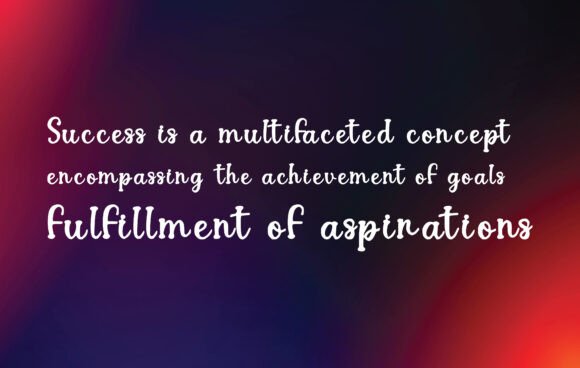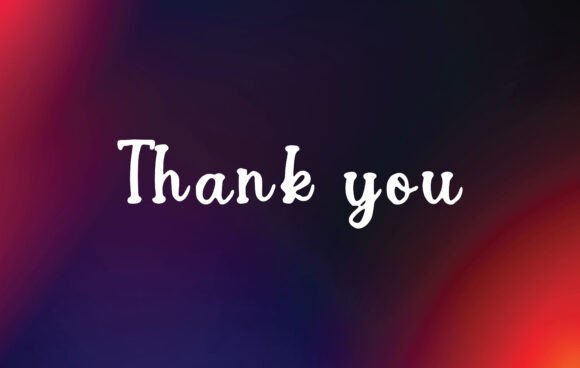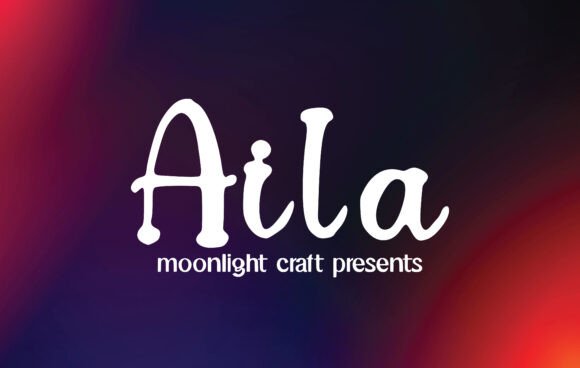
Aila Font: Elevate Your Creative Projects with this Lovely Handwritten Font
Are you a designer, crafty enthusiast, or a creative entrepreneur looking for a font that can take your projects to the next level? Look no further than Aila Font, a beautiful handwritten font that is sure to capture your audience’s attention. In this article, we’ll dive into the features and benefits of Aila Font, and explore how it can be used to create stunning visual content.
What is Aila Font?
Aila Font is a lovely and beautiful handwritten font that has been designed to help creatives bring their ideas to life. With its elegant and flowing script, Aila Font is perfect for a wide range of projects, from logos and branding to quotes and social media graphics. This font is carefully crafted to provide a unique and personalized touch to your designs, setting them apart from the rest.
Key Features of Aila Font
• Handwritten script: Aila Font features a beautiful handwritten script that adds a personal touch to your designs.
• Elegant and flowing: The font’s elegant and flowing design makes it perfect for creating sophisticated and eye-catching visual content.
• High versatility: Aila Font can be used for a wide range of projects, from logos and branding to quotes and social media graphics.
• Easy to read: Despite its elegant design, Aila Font is easy to read, making it perfect for body text and captions.
Benefits of Using Aila Font
So, why choose Aila Font for your creative projects? Here are just a few benefits of using this lovely handwritten font:
• Stand out from the crowd: Aila Font’s unique and elegant design helps your projects stand out from the crowd and grab attention.
• Professional look and feel: The font’s sophisticated design gives your projects a professional look and feel, perfect for businesses and entrepreneurs.
• Time-saving: With Aila Font, you can create stunning visual content quickly and easily, saving you time and effort.
How to Use Aila Font
Using Aila Font is easy! Here are a few tips to get you started:
• Logos and branding: Use Aila Font to create stunning logos and branding materials that showcase your business’s personality and style.
• Quotes and social media graphics: Add a touch of elegance to your quotes and social media graphics with Aila Font.
• Invitations and stationery: Use Aila Font to create beautiful invitations and stationery that set the tone for your events and communications.
Tips and Tricks for Working with Aila Font
Here are a few tips and tricks to help you get the most out of Aila Font:
• Experiment with colors: Aila Font looks great in a variety of colors, so don’t be afraid to experiment and find the perfect hue for your project.
• Play with font sizes: Aila Font is versatile and can be used at a range of font sizes, from large headings to smaller body text.
• Mix and match: Try pairing Aila Font with other fonts to create a unique and eye-catching combination.
In conclusion, Aila Font is a beautiful and versatile handwritten font that is perfect for designers, crafters, and creatives of all kinds. With its elegant and flowing script, Aila Font is sure to take your creative projects to the next level. Whether you’re looking to create stunning logos and branding, eye-catching quotes and social media graphics, or beautiful invitations and stationery, Aila Font is the perfect choice.